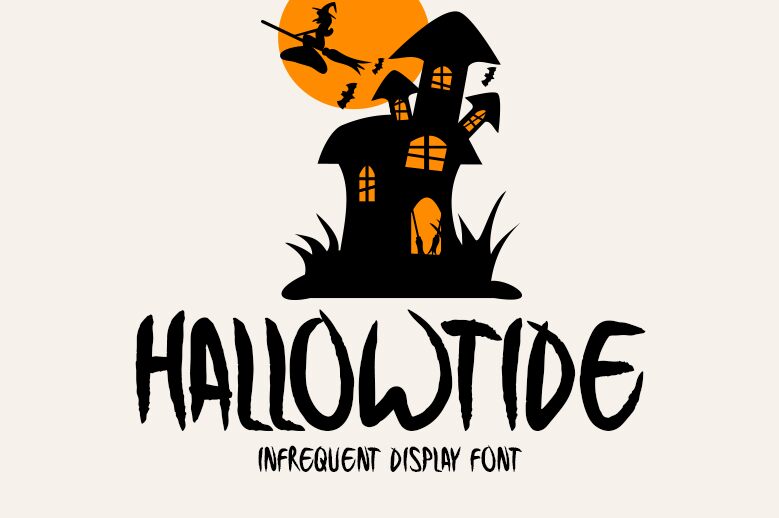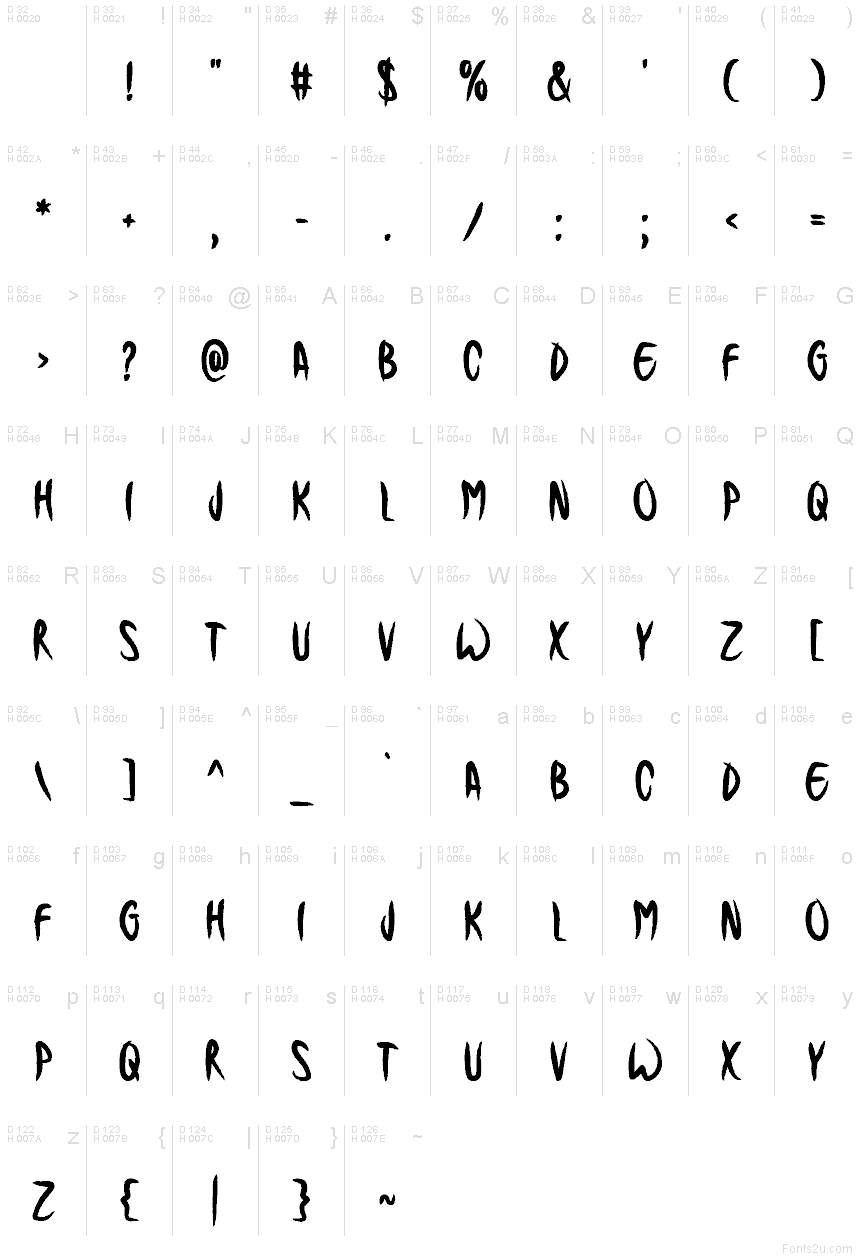
Hallowtide
Hallowtide font by Md Shohail Bhuian is a free Halloween display font. Its letters feel clawed from ink—tall, narrow strokes with ragged, windblown curves that squeeze tension into every word. The rhythm is jittery yet readable, giving headlines that “creak” without turning to mush, even at larger sizes.
Using Hallowtide, your spooky posters, haunted-house flyers, party invites, YouTube thumbnails, seasonal banners, trick-or-treat packaging, and merch tags immediately pick up that eerie, hand-drawn energy. This free font loves big type with a touch of extra tracking. Pair it with a calm, neutral sans for body copy, and let the inky edges do the haunting up top.